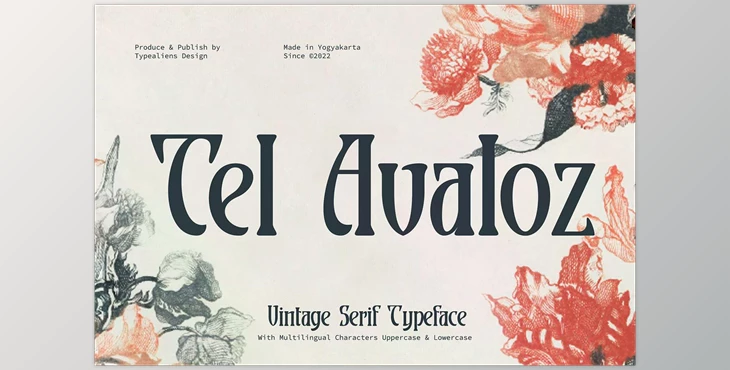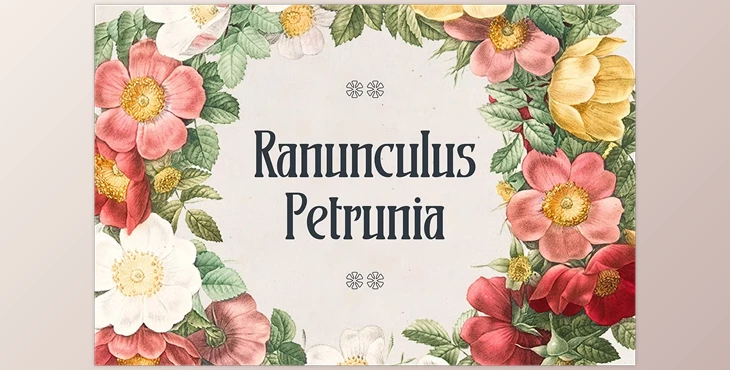
Tel Avaloz Typeface Font is a versatile vintage serif font suitable for both traditional and modern design contexts.
This typeface is particularly well-suited for headlines, social media graphics, and branding projects.